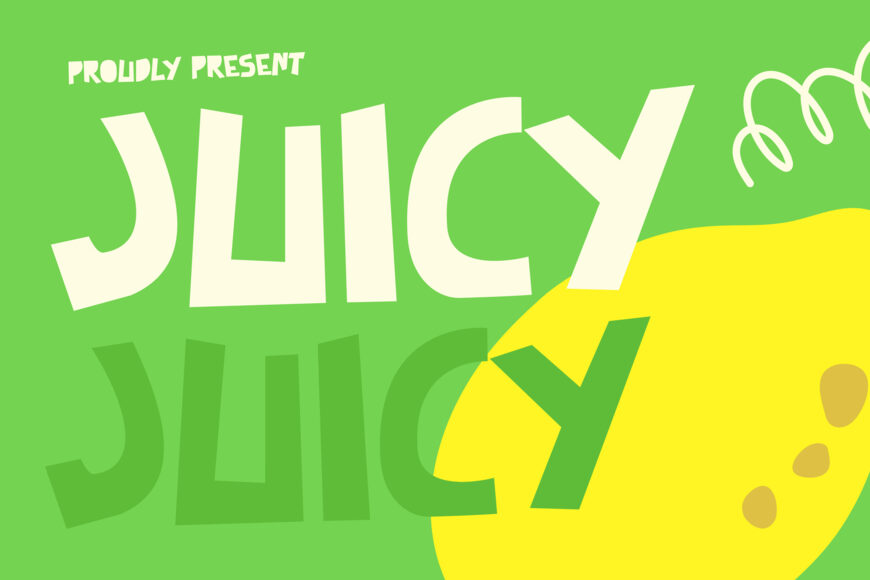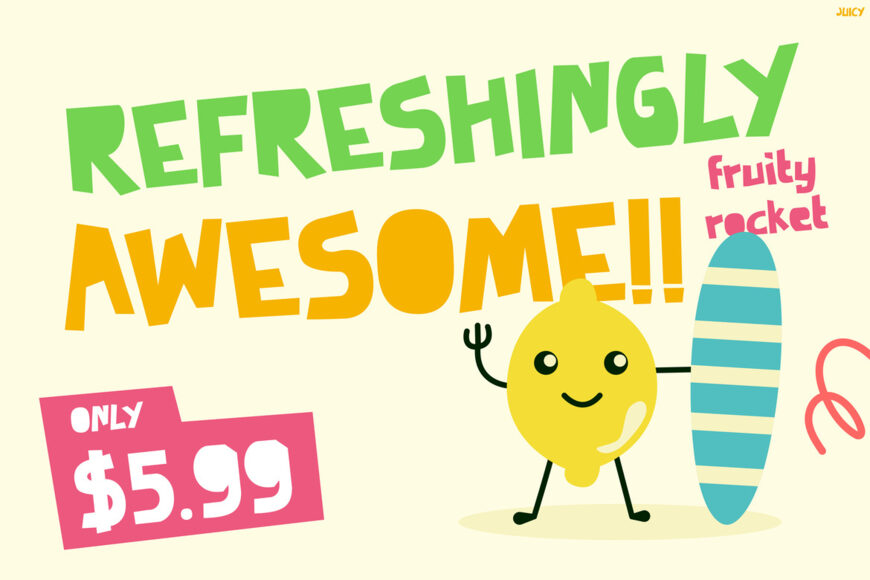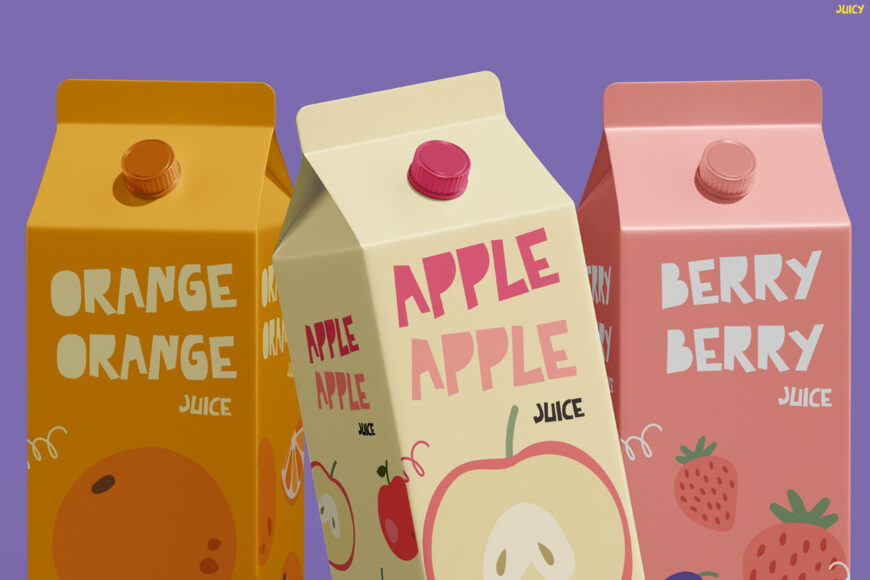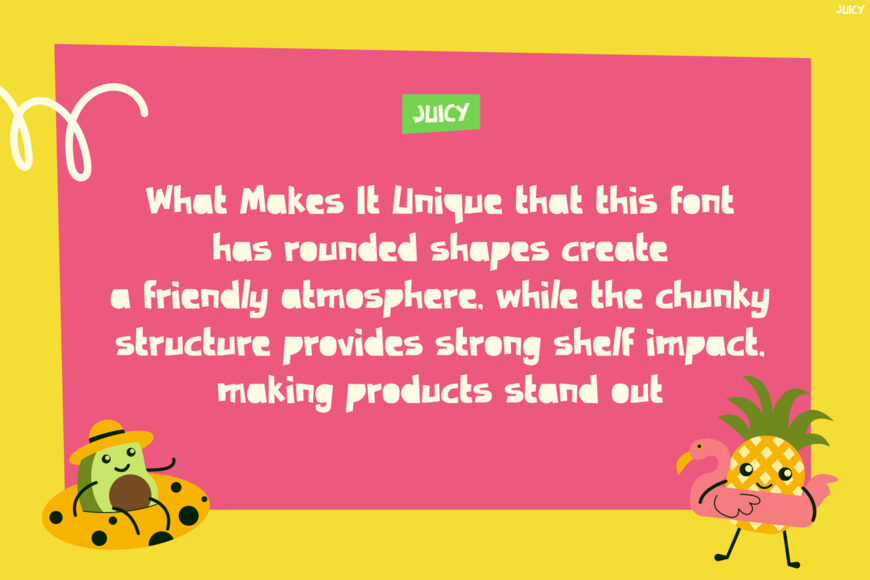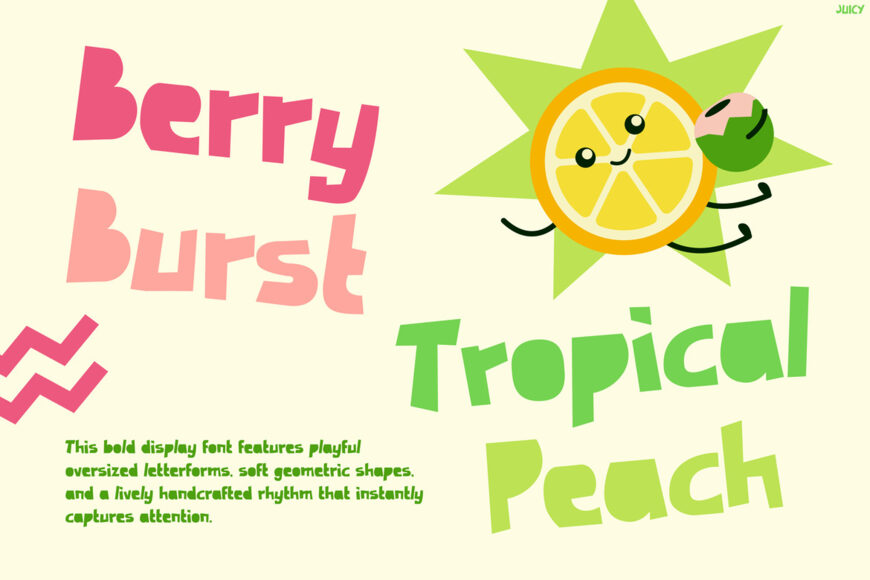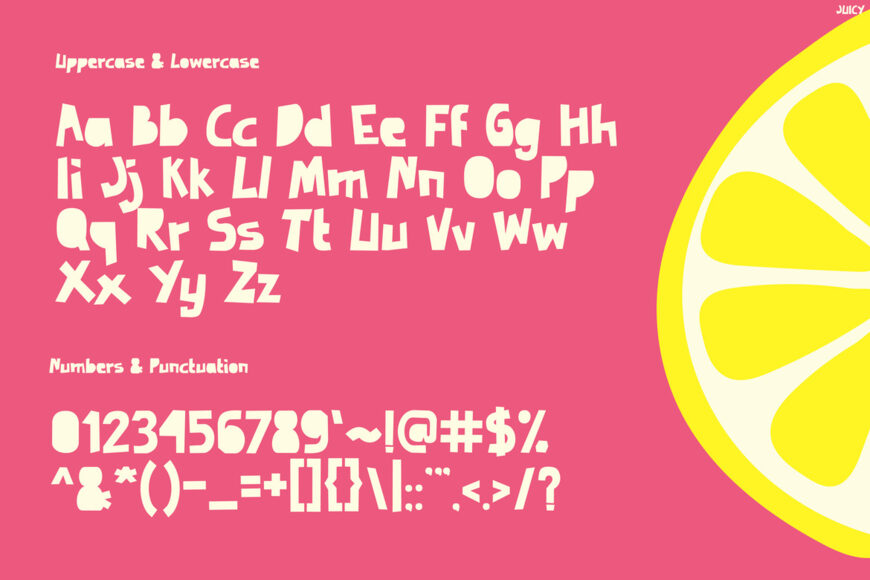
Juicy Font
Juicy is a bold, playful display font designed to bring energy, happiness, and creativity into every design. Inspired by colorful fruits, refreshing drinks, and cheerful children’s themes, this font features chunky letterforms, lively shapes, and a fun-loving personality.
Its eye-catching style instantly grabs attention, while its smooth curves keep the look friendly and approachable. As a result, every headline feels brighter, more exciting, and full of life.